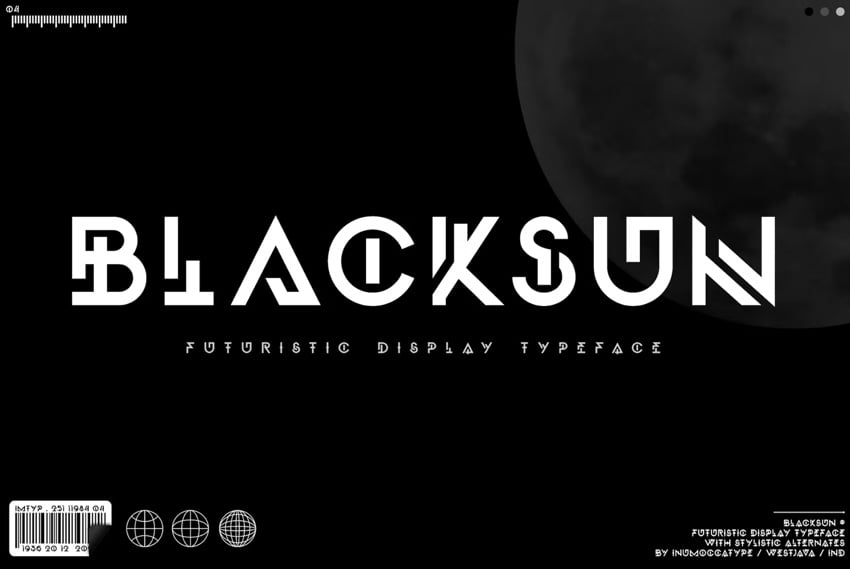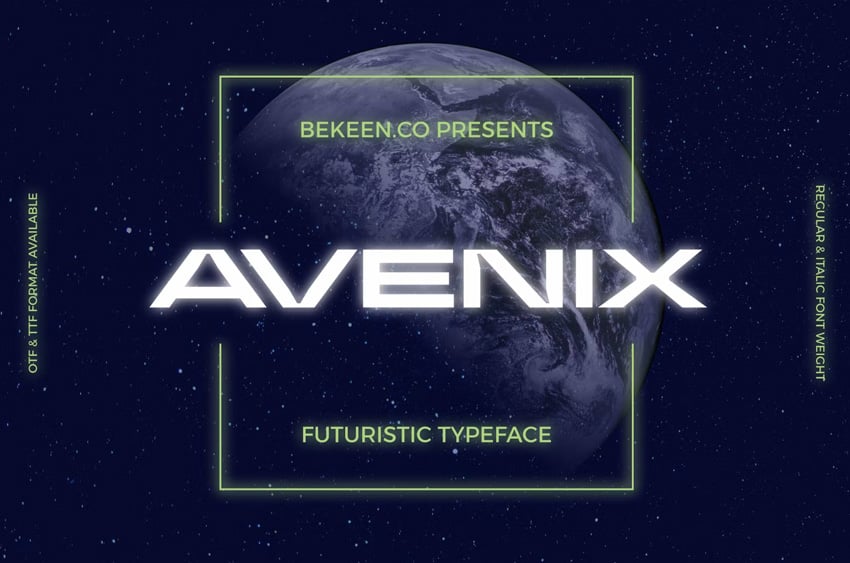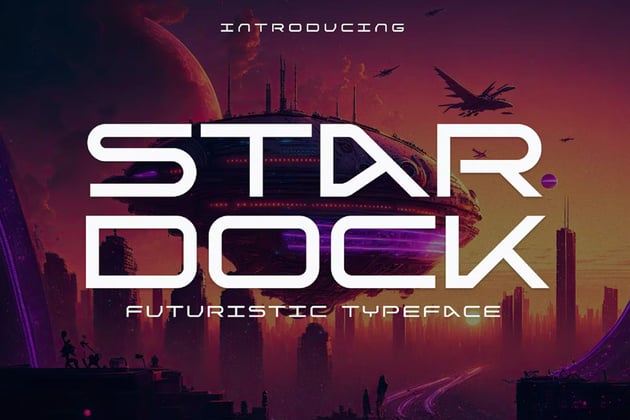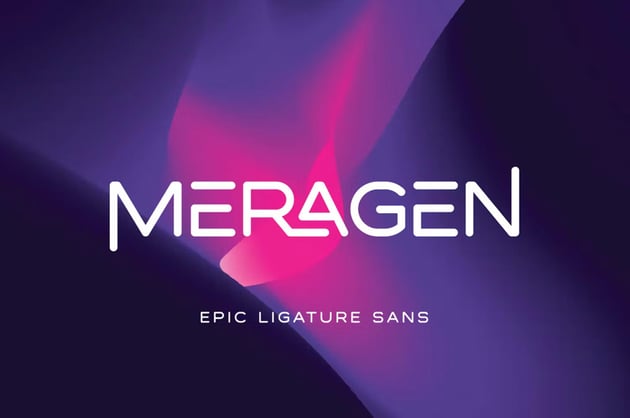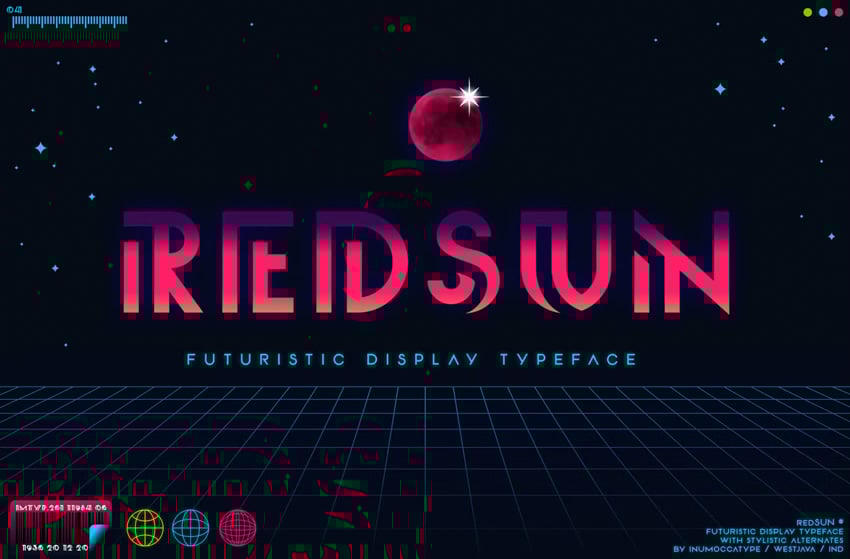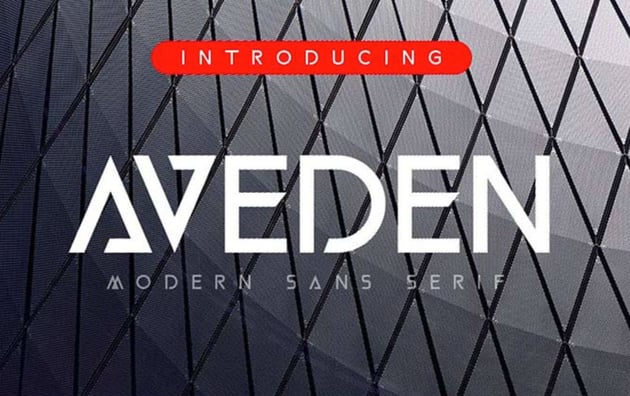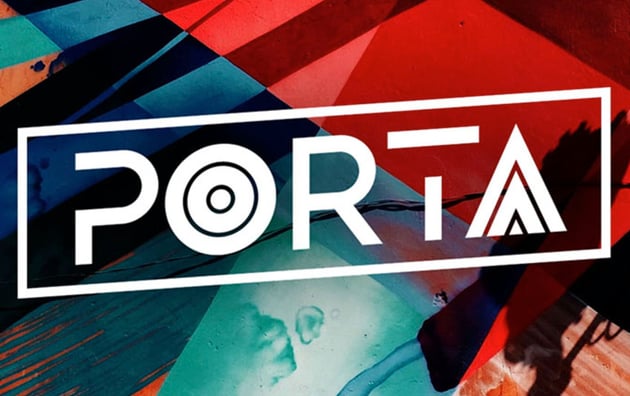
39 Best Futuristic Fonts
Looking for the best futuristic fonts? This list contains amazing futuristic font styles, perfect for a variety of projects. Whether you're looking for futuristic techno fonts or the perfect retro-futurist font, there's plenty to see.
1. Nemesis Futurist Font (OTF, TTF)
If sci-fi futuristic fonts are your thing, then you'll love Nemesis. This cool futuristic font combines industrial, grunge, and futuristic, all in one awesome package. The package includes four styles: regular, grunge, inline, and inline grunge.
2. Flare Futuristic Space Font (OTF, TTF, WOFF)
Another gorgeous sci-fi futuristic font, this time with that Alien movie vibe to it, Flare is a perfect choice for technological, sci-fi, and all kinds of futuristic projects you can come up with.
3. Axeon Futuristic Font Style (OTF)
How cool is Axeon, a futuristic font that incorporates a safety pin element to create a retro-futuristic font look? Use this set that includes uppercase letters only to create your posters, album covers, T-shirts, product design, etc.
4. Metro Uber Futuristic Y2K Fonts (OTF, TTF, WOFF, SVG)
Looking for a futuristic bold font? Look no further than Metro Uber Font, a wonderful display font for those projects where you need a font that will stand out from the pack.
5. STARBLASTER Futuristic Techno Fonts (OTF, TTF, WOFF)
Starblaster is another futuristic bold font that you can use when you need a font that will stand out well in big projects but still retain a bit of creative edginess. The set includes three styles: regular, italic, and parallel.
6. Drupadi Futuristic Fonts (OTF, TTF)
Drupadi is a gorgeous sci-fi futuristic font that would look equally great used in larger or smaller sizes. Great for titles, posters, T-shirts, branding, logos, and various media.
7. LineTech Cool Futuristic Fonts (OTF, TTF, WOFF, SVG)
The LineTech typeface contains three futuristic font designs: light, regular, and bold. Perfect for use in projects dealing with science, computers, gaming, and the internet, this typeface uses clean lines and soft curves to draw viewers in.
8. Aveden Retro Futurist Font (OTF, TTF)
One of the simpler futuristic fonts featured here, Aveden is nevertheless a powerhouse you can use in your posters, web design, branding, and more. This sans serif font includes uppercase letters, numerals, and a large range of punctuation.
9. United Kingdom Futuristic Font Styles (OTF, TTF)
Check out this cool futuristic font! United Kingdom is an all-caps display font with characters that have corners where curves would be expected. Use this gorgeous font for T-shirts, movie titles, posters, and other print media.
10. Porta Futuristic Font Style (OTF, TTF, WOFF)
Porta is another of those futuristic fonts that you can't ignore. It offers a stunning combination of simplicity and style in balanced proportions. The all-caps sans serif includes numbers, punctuation, and accents for foreign languages.
11. Alpha Futuristic Fonts (OTF, TTF, WOFF)
This retro-futuristic font is all you need when you want to create riveting logos, branding materials, and other stand-out media. The display font includes upper and lowercase letters, numbers, and punctuation. Use it for gaming, album covers, movie titles, etc.
12. Codevein Futuristic Y2K Fonts (OTF, TTF, WOFF)
How's this for eye-catching futuristic bold fonts? Codevein is a wonderfully innovative font that harnesses the language of technology to create a font that is both futuristic and distinctive. Codevein includes uppercase Latin letters, numbers, and punctuation.
13. Eva Typeface Futurist Font (TTF)
Eva has one of those futuristic font designs that whispers rather than shouts, but that doesn't mean it's any less effective. This stylish sans serif typeface is great for titles and contains three styles: light, regular, and bold. They all include foreign language letters and symbols.
14. Cyborg Futuristic Font Styles (OTF, TTF, WOFF)
Nothing says sci-fi futuristic fonts like the aptly named Cyborg. This futuristic bold font is the ultimate display font for games, music, movie titles, brands, and many more. The set includes both upper- and lower-case Latin letters, numbers, and punctuation.
15. Ornacle Futuristic Techno Fonts (OTF, TTF)
Ornacle is a retro-futuristic font for innovators and risk-takers. Combining a futuristic style with ancient lettering, this cool futuristic font is the one to use when you want to turn heads.
16. Metropolia Futuristic Space Font (OTF, TTF)
Why not use this cool futuristic font in your next project to bring a bit of that sci-fi edge to your work? Metropolia is an extraordinary hand-written script that's available in uppercase Latin letters and would work well for branding, logos, and other print-related projects.